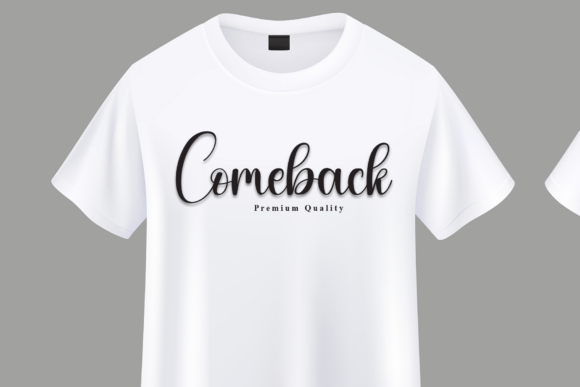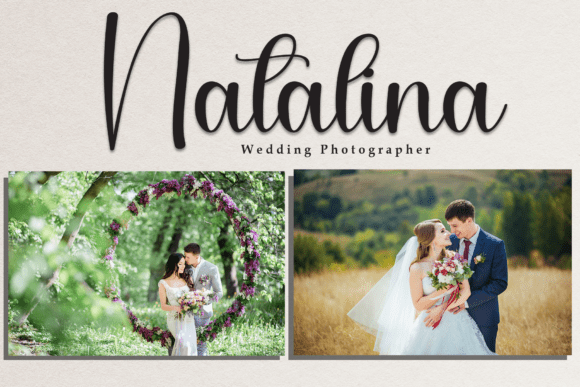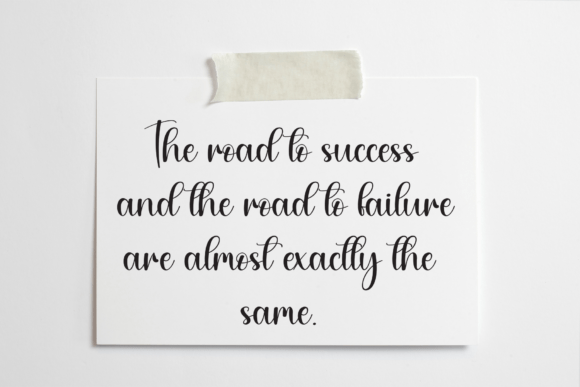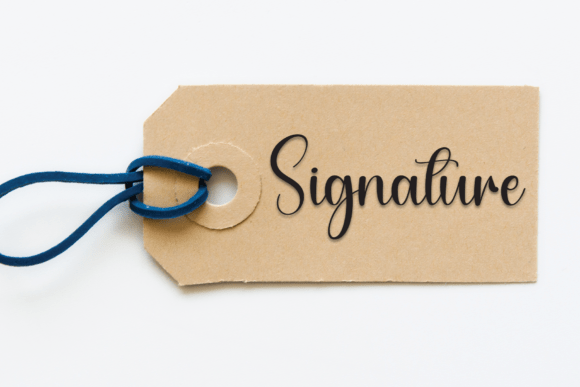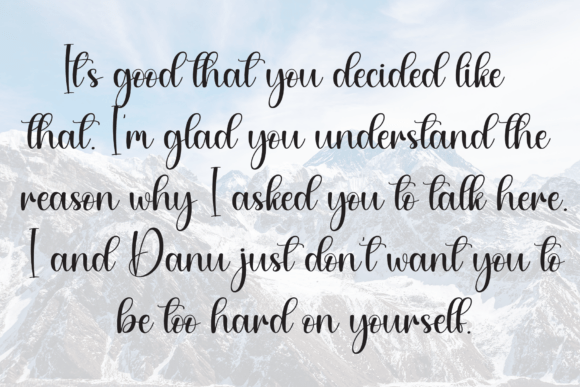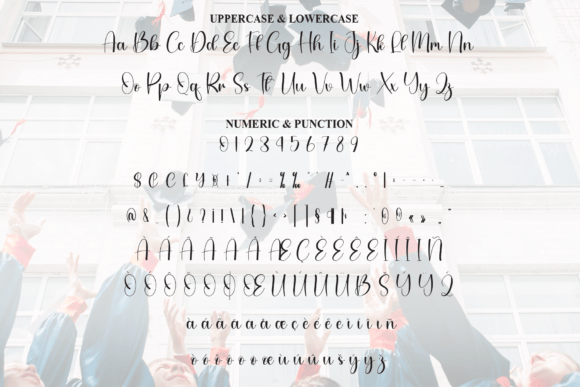
The Perfect Touch for Your Next Design Project
Have you ever sat down with a blank canvas, a blank sheet of paper, or even a blank computer screen, and thought to yourself, ‘I want to create something truly special today’? Maybe it’s a wedding invitation, a birthday card, or a heartfelt letter to a loved one. Whatever the occasion, the right font can make all the difference in capturing the essence and emotion of your message. That’s where the Graduation Font comes in – a beautifully handcrafted display font that’s sure to add a touch of tenderness and whimsy to your creations.
Whether you’re a seasoned designer or just starting out, the Graduation Font is an invaluable addition to your toolkit. Its playful yet significant charm makes it perfect for a wide range of design projects, from calligraphic endeavors to greeting cards and beyond. With its unique blend of approachability and sophistication, this font is sure to elevate your designs and leave a lasting impression on your audience.
Graduation Font Key Features
- Unique Characteristics: Custom-designed for graduation-themed applications, featuring elegant and celebratory script and serif styles
Graduation Font Review
At first glance, Graduation Font seems like a promising addition to any design project. ✨ Its elegant, cursive script is reminiscent of traditional diplomas and certificates, making it a great choice for formal occasions. The font is also highly customizable, allowing you to adjust the size, color, and style to suit your needs.
One of the standout features of Graduation Font is its versatility. ✨ It can be used for a wide range of applications, from wedding invitations to graduation announcements, and even business cards. The font is also highly legible, making it easy to read even in smaller sizes.
While Graduation Font is a solid choice, there are some limitations to consider. ⚠️ For one, the font may not be suitable for informal or casual designs, as it can come across as too formal or pretentious. Additionally, the font’s customization options can be overwhelming, especially for those with limited design experience.
Overall, I would give Graduation Font a solid 4 out of 5 stars. ✨ While it may not be the most versatile font, its elegant script and high level of customization make it a great choice for formal designs. With a little practice, even beginners can create stunning designs using this font.
Recommendations
- Use Graduation Font for formal designs, such as wedding invitations, graduation announcements, and business cards.
- Experiment with different customization options to find the perfect look for your design.
- Consider pairing Graduation Font with a more modern or minimalist design to avoid overwhelming the reader.
Graduation Font Practical Application Guide
The Graduation Font is ideal for academic and celebratory designs, such as:
- Graduation announcements and invitations
- Academic certificates and diplomas
- College and university promotional materials
- Personalized graduation cards and gifts
For optimal results, use the Graduation Font in conjunction with bold, colorful backgrounds and eye-catching graphics.
Alternatives to Graduation Font
Comparison: While Graduation Font has a more playful and modern feel, Playfair Display offers a more traditional and sophisticated look. It’s perfect for designers who want to convey a sense of luxury and elegance.